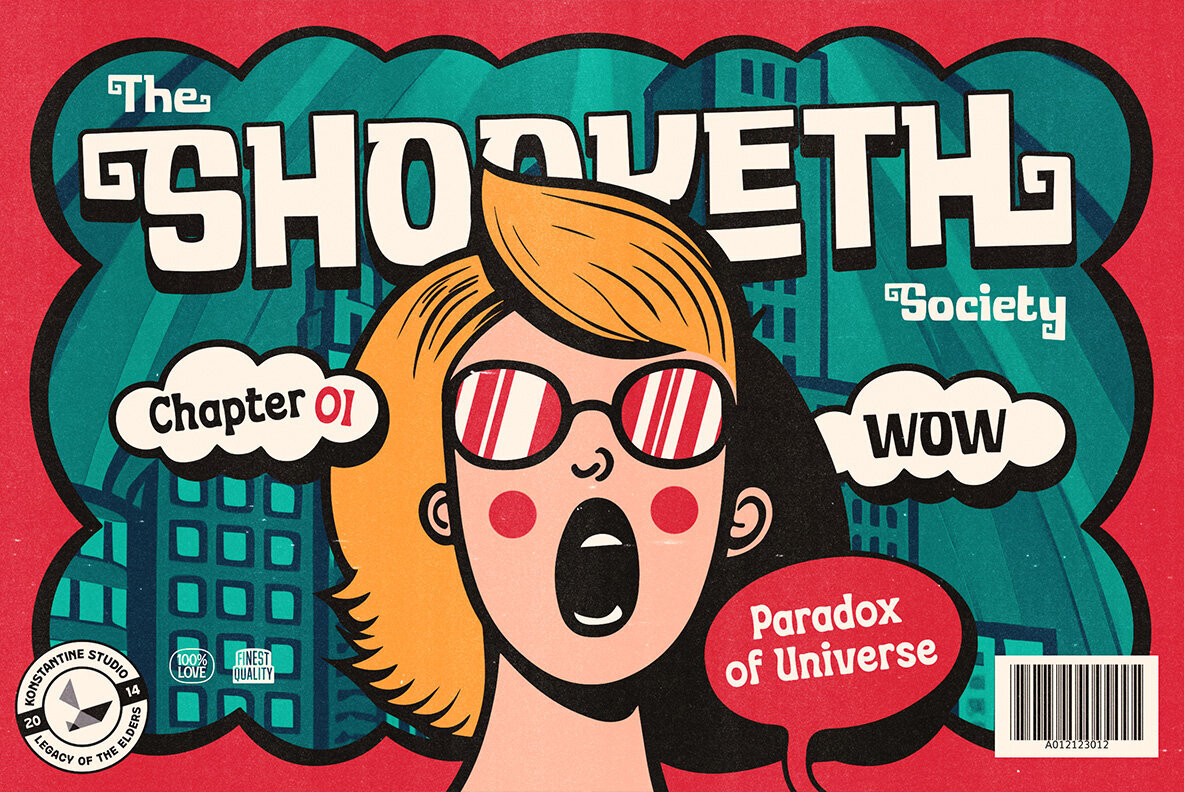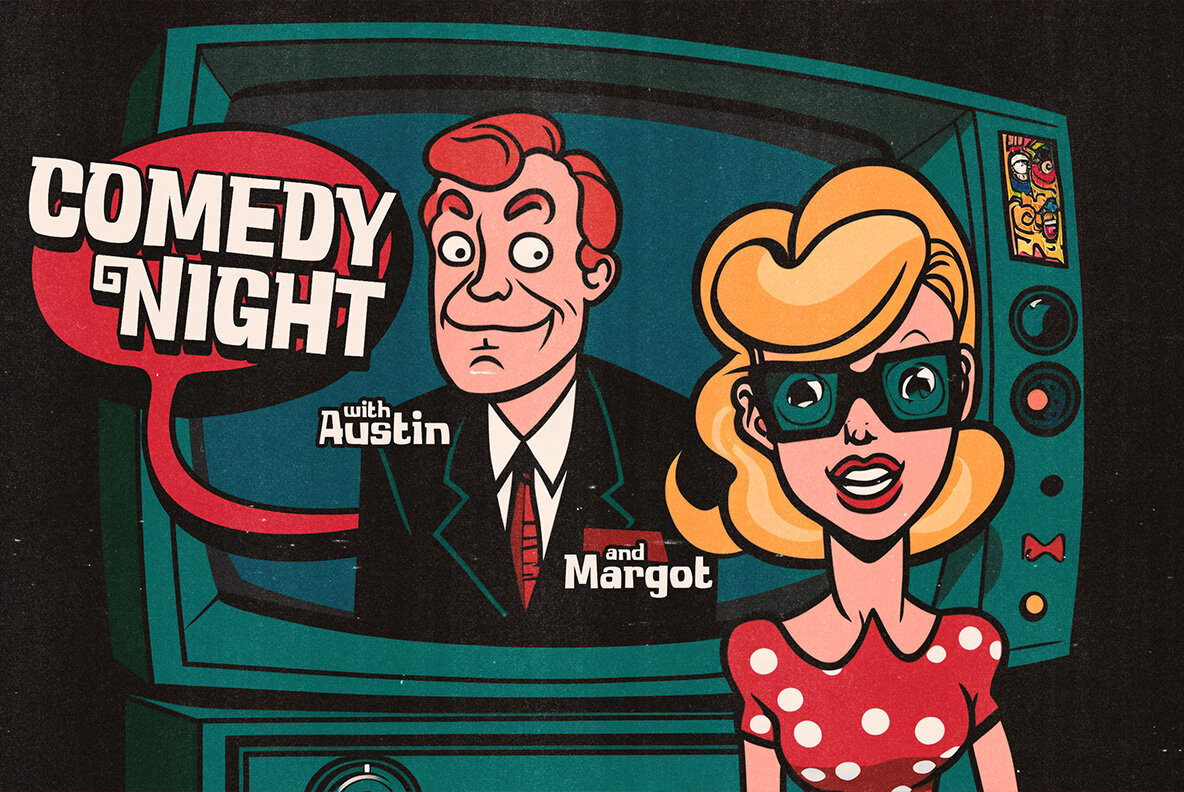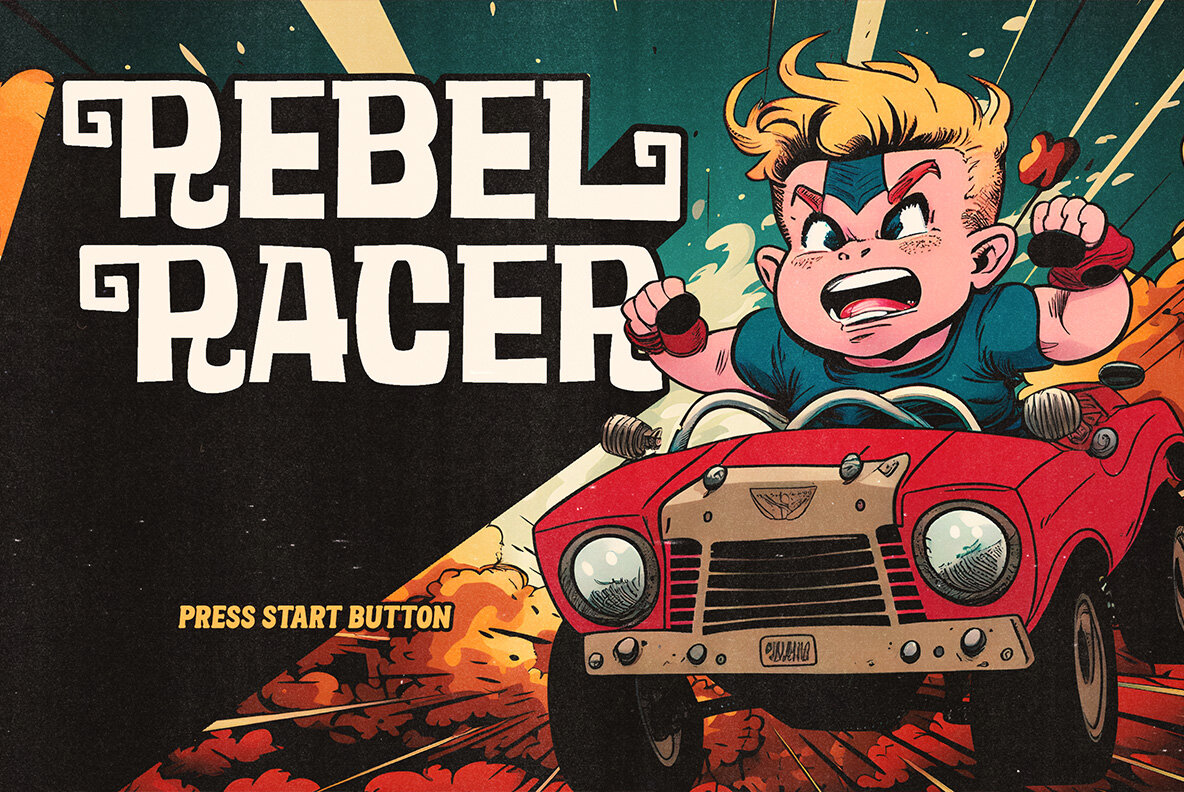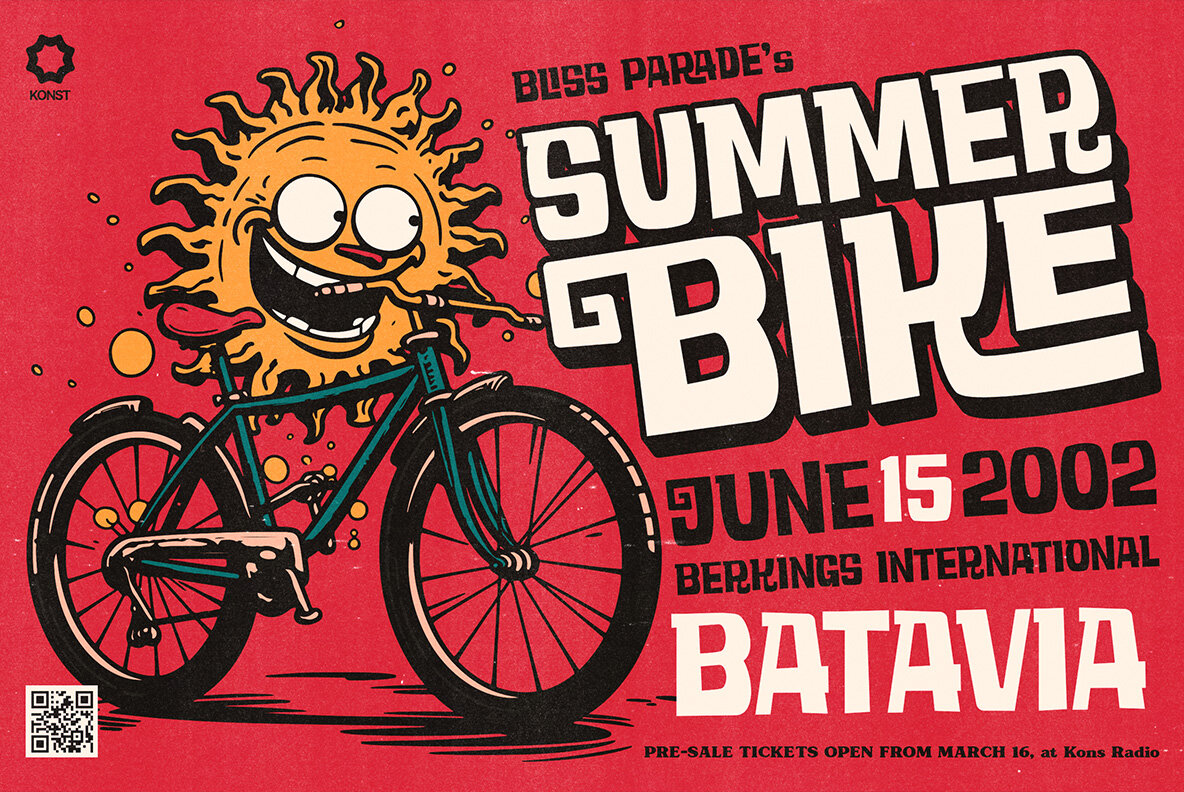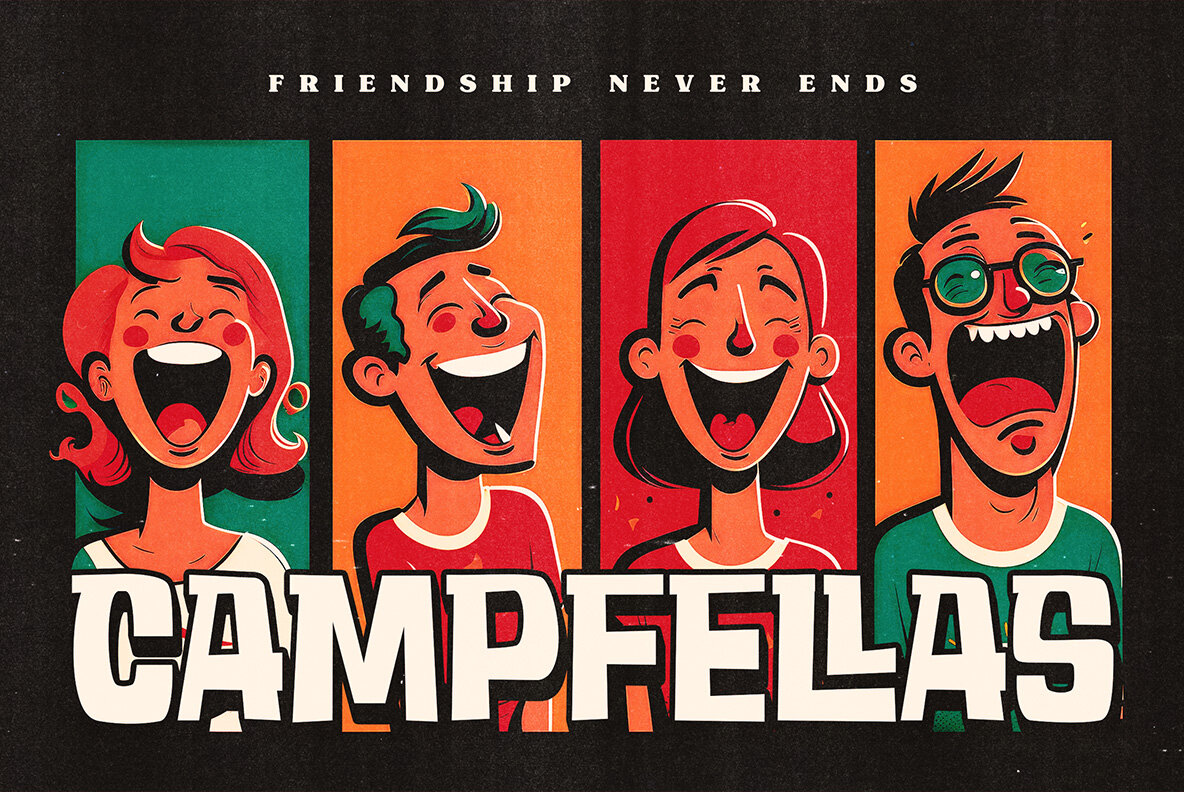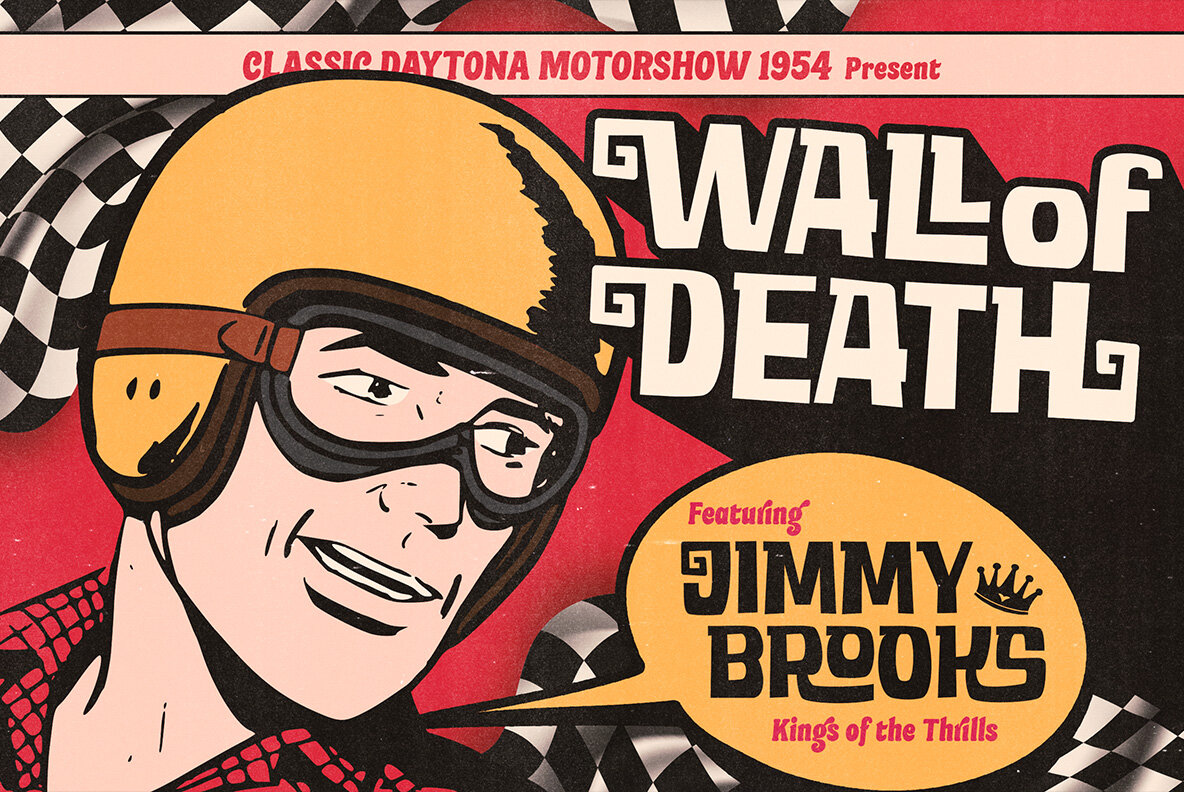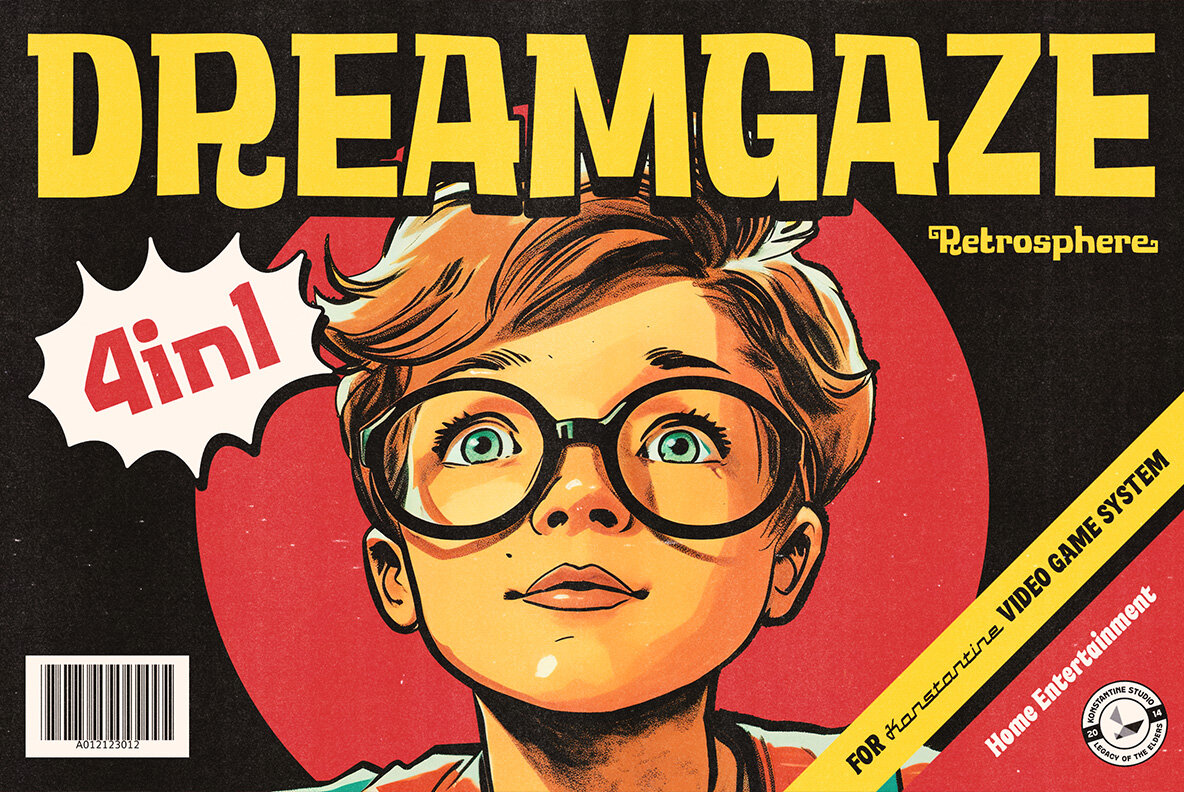
Hickertown Font
Hickertown Regular
Step back into the Roaring Twenties with Hickertown, the quintessential choice for retro comical fonts that add a touch of vintage flair to your designs. Hickertown transports you to an era where flappers and dapper gents set the scene. This font captures the essence of the speakeasy age, ensuring your designs make an unforgettable impact. Whether you're enhancing posters, covers, websites, social media, logos, branding, or invitations, Hickertown Fonts provide an authentic yesteryear flair. Your projects will stand out as distinct and memorable. Don't miss the chance to invigorate your design projects with the dynamic style of Hickertown. Let the good times roll with this retro gem!Hickertown: Retro Comical Fonts by Konstantine Studio
Capturing the Essence of the Speakeasy Era
Versatile Usage Options
Advanced Typography Features